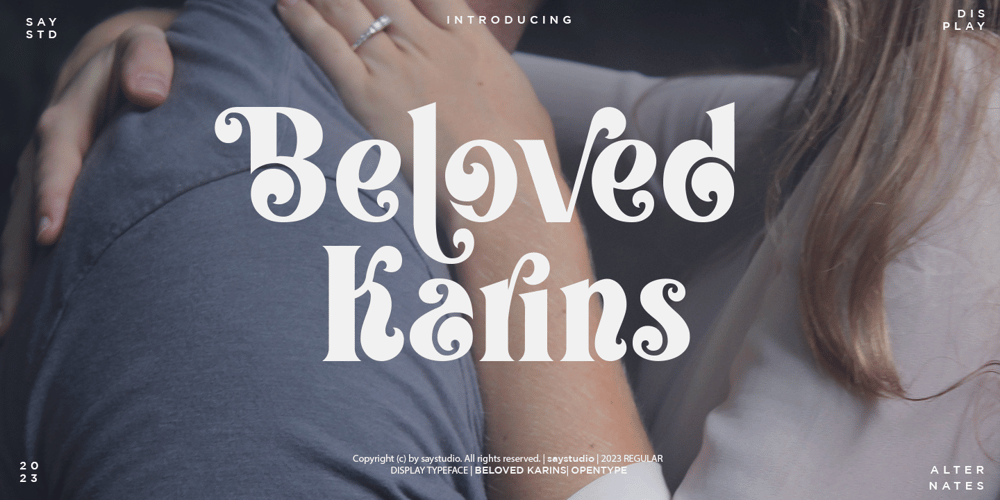
Beloved Karins Font Family was designed by Mussyayin and published by Say Studio. Beloved Karins contains 2 styles and family package options. About The ProductLemonade Fresh font is a Display Serif Typeface with a unique circular shape inspired by the alternate shapes in most serif fonts, but Lemonade Fresh makes it a regular shape, and Lemonade Fresh still has 50+ other alternate that you can combine to get curves and beautiful shapes easily just in seconds. It is a display font with moderate contrast that perfect for branding projects, logo, wedding designs, social media posts, advertisements, product packaging, product designs, label, photography, watermark, invitation, stationery, and any projects, it makes with a high level of legibility.What’s Included:- Fresh Lemonade Regular – Fresh Lemonade Italic – Accented Characters (West Europe)- Ligature & Huge Stylistic alternate- Works on PC & Mac- Recommended using Adobe Illustrator or Adobe Photoshop. Wish you enjoy our font and if you have any questions, don’t hesitate to drop message & I’m happy to help :)Thanks, Have a wonderful Day,Say Studio